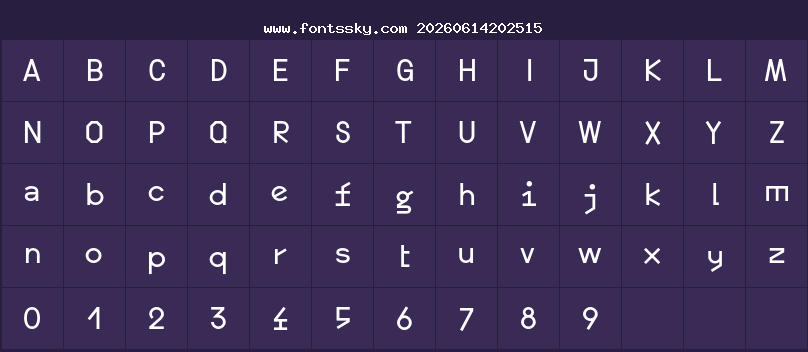
• Font Name: Heal The Web A
• Full Font Name: Heal The Web A Regular
• Designer: Rainbow Unicorn & Jakub Kanior
• Manufacturer: Rainbow Unicorn
About Heal The Web A.otf
Heal The Web A.otf is a modern, elegant sans-serif font designed for ultimate readability and visual harmony. Perfect for branding, headlines, web design, and print materials.